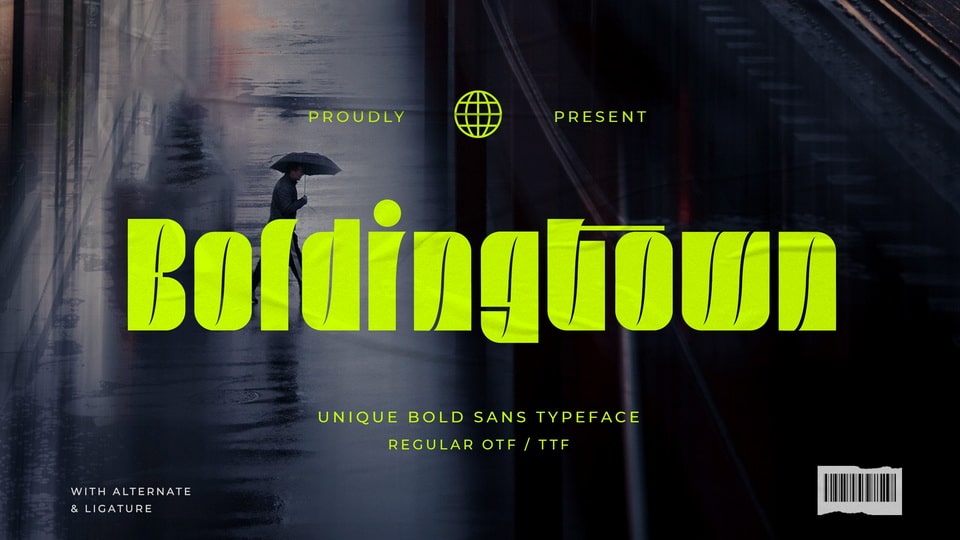
Download Boldingtown font, a unique bold display typeface. Boldingtown will be the ideal choice for any cool project or great design you wish to develop.
Designer: Typefactory